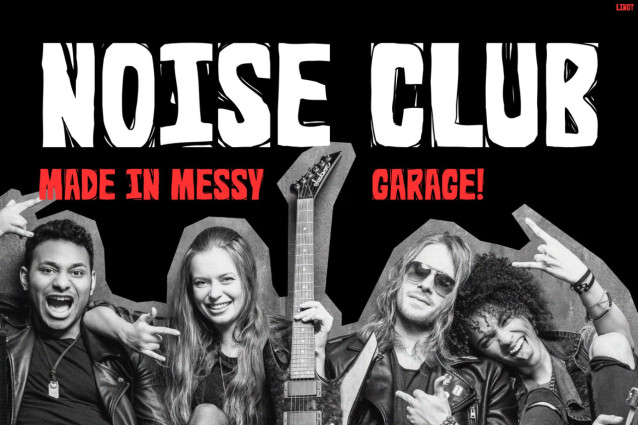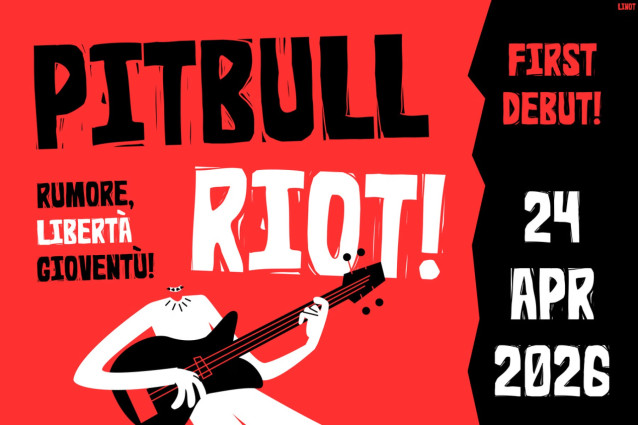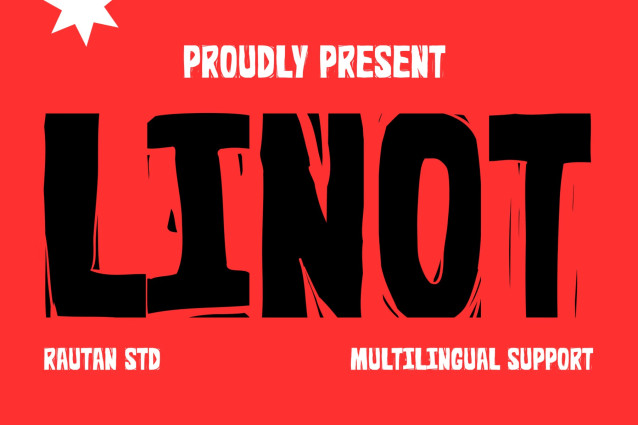
Linot Font
Music Font Linot is a fierce display font built to represent the explosive energy of punk, rock, and underground music scenes. Not only does it feature bold condensed letterforms, but it also includes rough edges and chaotic details that create an authentic DIY attitude. Moreover, its aggressive visual style delivers a powerful impact from the first glance.
In addition, the distressed appearance gives every design a rebellious and fearless personality. Furthermore, Linot maintains strong readability while preserving its wild character. As a result, posters, album artwork, and promotional graphics become louder, stronger, and more memorable. Additionally, with support for 67 languages, Linot allows musicians and creators worldwide to share their message without boundaries.